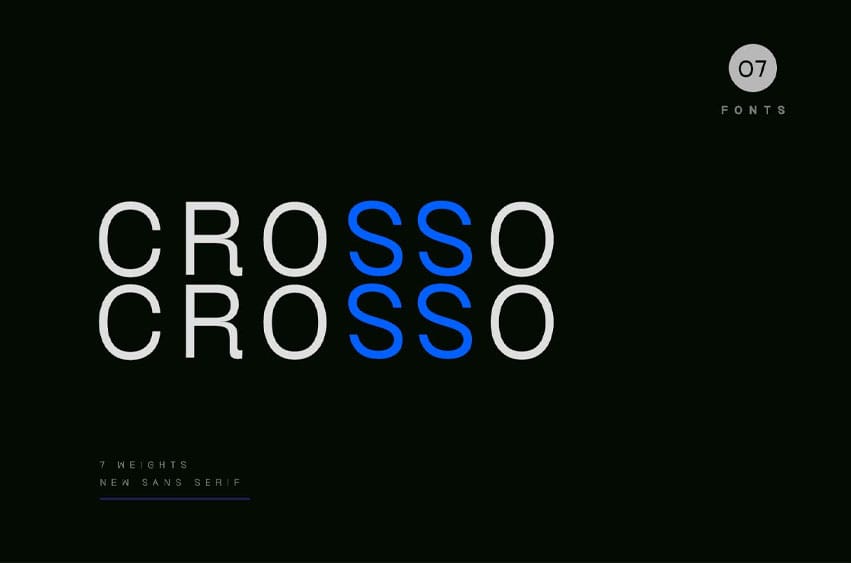
Crosso Typeface Font is Unique with Web-fonts. This font works great in large and small sizes. Crosso Typeface would be perfect for branding, logos, headlines, and captions & simply as a stylish text overlay to any background image. Strong capitals and a smooth, open lowercase are effective in a variety of applications.
The various weights allow you to experiment with a wide range of applications. It’s created to make an impression without sacrificing its beauty and readability.
The Typeface includes 7 Weights – Thin, ExtraLight, Light, Regular, Medium, SemiBold, Bold.